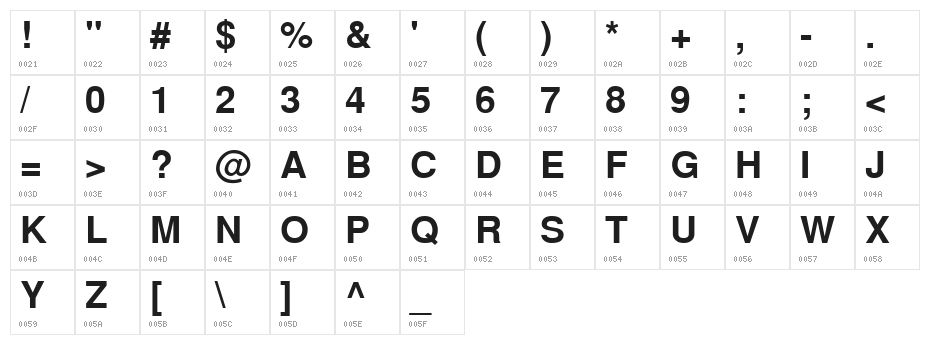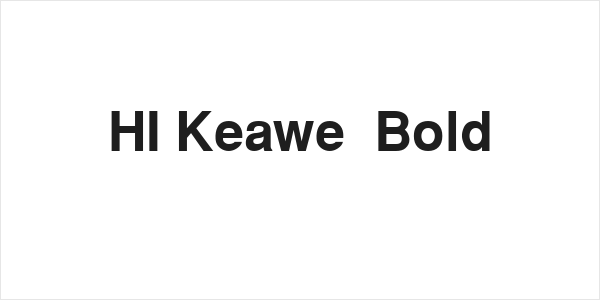
HI Keawe Bold Font
HI Keawe Bold Description
This font exhibits a bold and assertive style, characterized by thick, uniform strokes that convey strength and clarity. The uppercase and lowercase letters maintain a consistent width, contributing to a balanced and harmonious appearance. The numerals are equally bold, ensuring readability and impact. Special characters are designed with the same boldness, making them stand out effectively. The overall design is clean and modern, suitable for a variety of applications where a strong visual presence is desired.
| Proposed Projects | Ideal for headlines, posters, branding materials, and any project requiring a bold statement. |